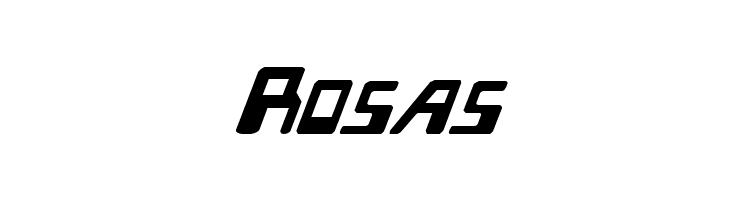
Eastman Cnd Alt Trial DmBold Ita Font
- Font: Eastman Cnd Alt Trial DmBold Ita
- Weight: DemiBold Italic
A bold, italic font with a futuristic and angular design.